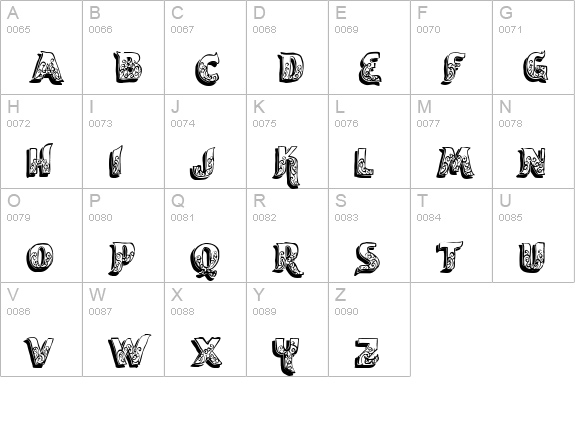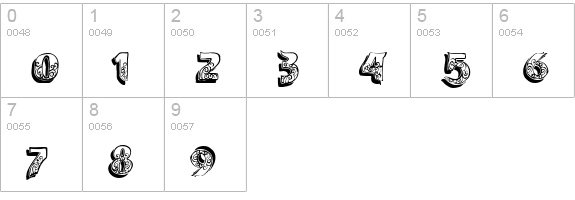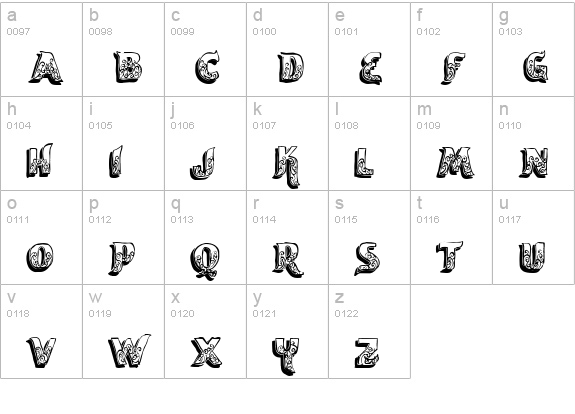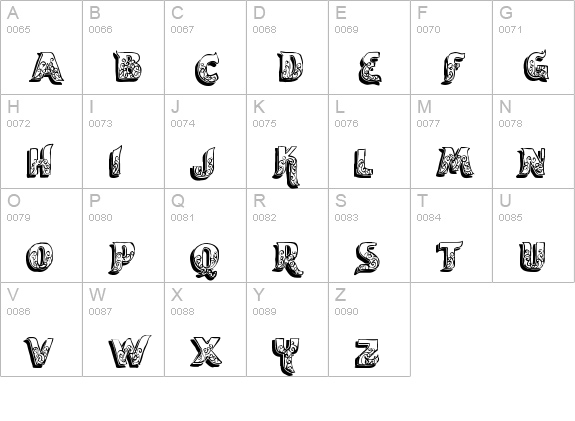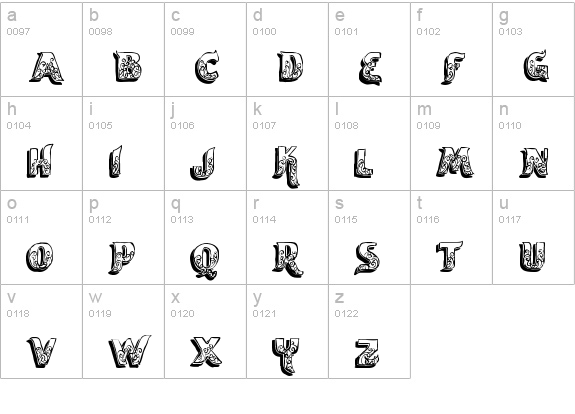
vtks encantar Font Details
The VTks Encantar font is a charming and versatile typeface that exudes elegance and sophistication. With its graceful curves and stylish letterforms, this font is perfect for adding a touch of magic to any design project. Whether you're creating invitations, branding materials, or social media graphics, VTks Encantar will elevate your work to new heights. What makes this font even more enchanting is that it is completely free to use. You can easily download VTks Encantar at FontsMarket.com and start incorporating its beauty into your designs today. Don't miss out on this opportunity to enhance your creative projects with this stunning and captivating font.